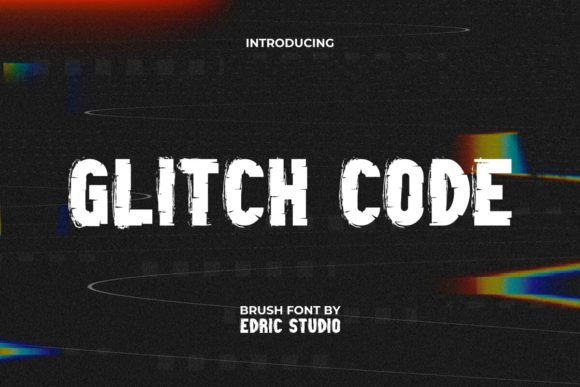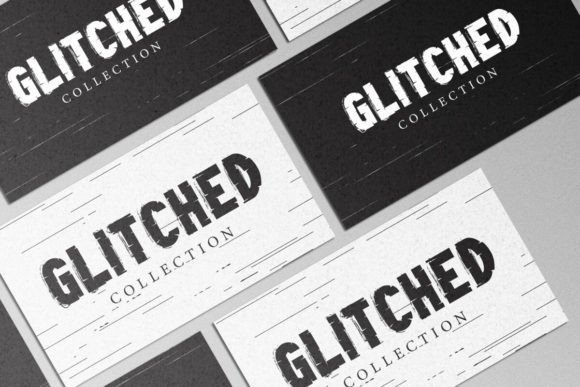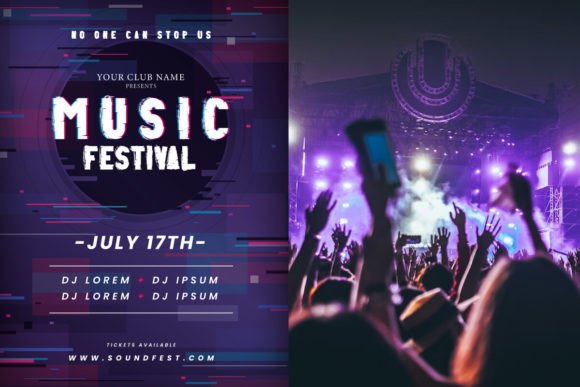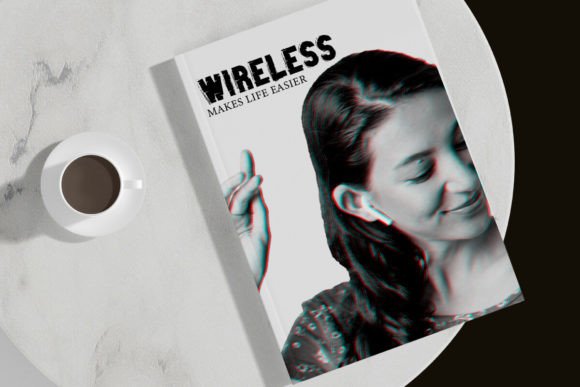
Glitch Code Font
About the Glitch Code Font
Experience the unique personality of Glitch Code Font, a font designed for impact. Glitch Code Font is a techno sci-fi disco block display font designed by EdricStudio. This font has a glitch effect on each character that makes it stand out cool and suitable for any industry, including accessories, barbershops, brand fashion, coffee palaces, events or festivals, fitness products, games, glassware, Halloween parties, handicrafts, menswear, movie, music, photography, printing, publishing, sport, and many more.
Glitch Code Font’s strong, geometric forms and distinctive glitch effect make it ideal for headlines, posters, and branding applications requiring a bold, eye-catching presence. It excels in short, impactful statements and works particularly well for projects related to technology, gaming, music, or fashion with a futuristic or retro-futuristic aesthetic. Avoid using it for body text or lengthy paragraphs; its highly stylized nature compromises readability at smaller sizes.
Consider pairing Glitch Code Font with a clean sans-serif like Open Sans for body copy to create a strong contrast and visual hierarchy. For a more playful feel, a rounded geometric sans-serif such as Circular Std could be used. If a more sophisticated look is needed, a classic serif like Garamond could add a touch of elegance and balance the font’s edginess.
The overall personality of Glitch Code Font is undeniably bold and rebellious, conveying a sense of energy and futuristic dynamism. Its striking visual impact makes it suitable for brands aiming to project a modern, edgy, and technologically forward image.
Glitch Code Font Usage Examples
Glitch Code Font Example